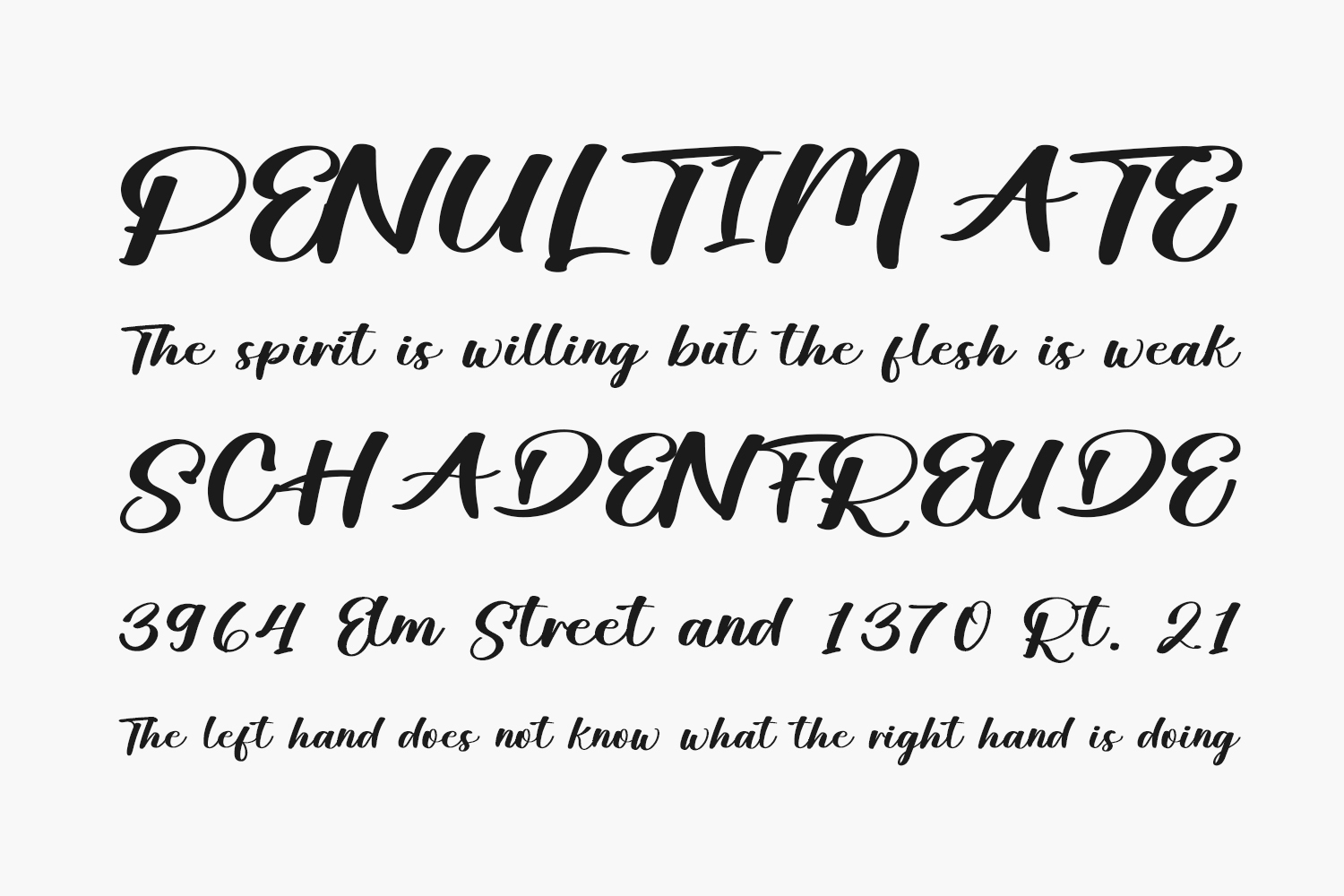
Discover Butterfly Free Font, a delightful script font that embodies a whimsical and relaxed theme. With its lovely style and versatile nature, this font is an invaluable addition to your font library. Unlock the potential to enhance any creative project with the enchanting essence of Butterfly. Butterfly Free Font is free for personal use only. Please purchase the full version for commercial use.